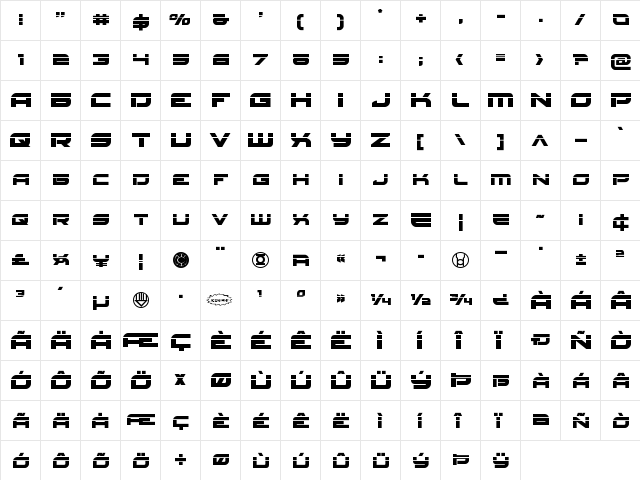
Red Rocket Laser Regular
Design Context for Red Rocket Laser Typeface
Red Rocket Laser is a composed and adaptable typeface that performs quietly and consistently across a wide range of design contexts.